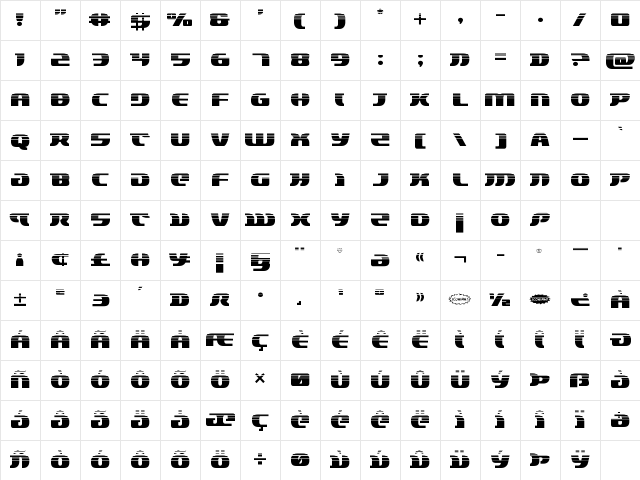
Lord of the Sith Halftone Regular
Design Context for Lord of the Sith Halftone
Lord of the Sith Halftone is a composed and adaptable typeface that performs quietly and consistently across a wide range of design contexts.